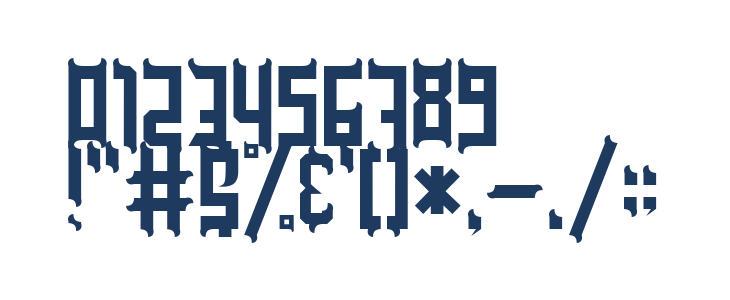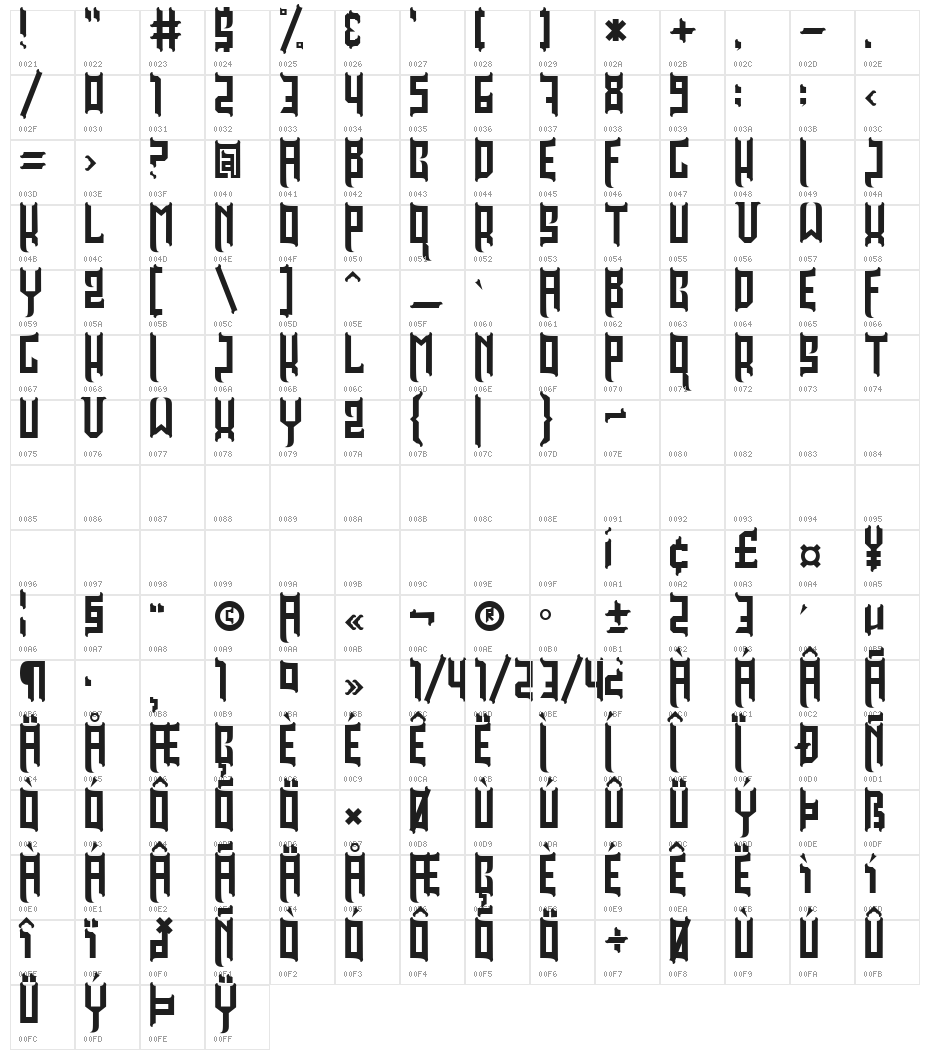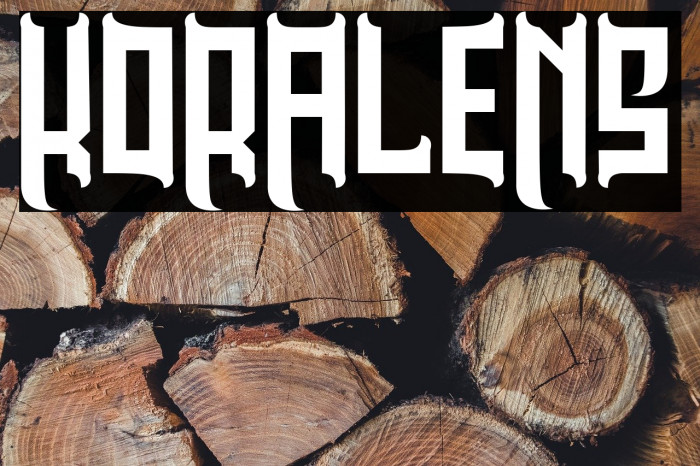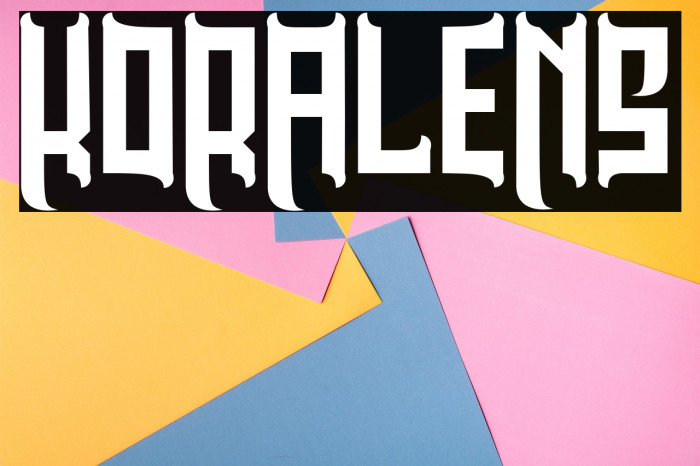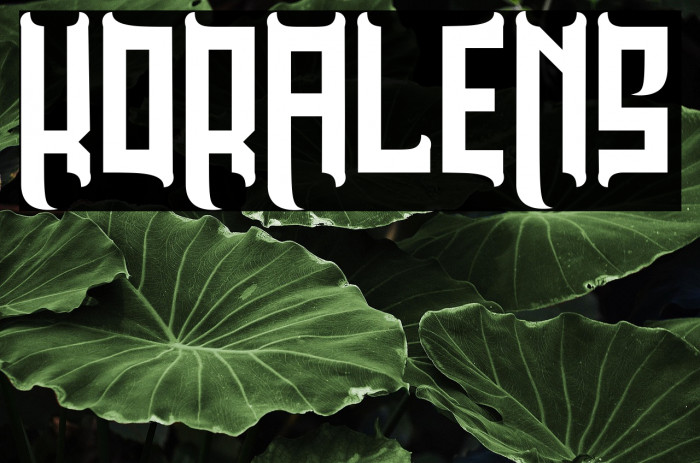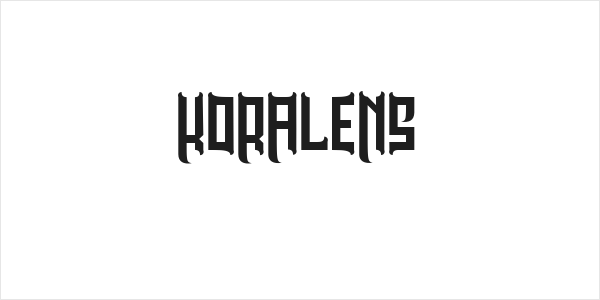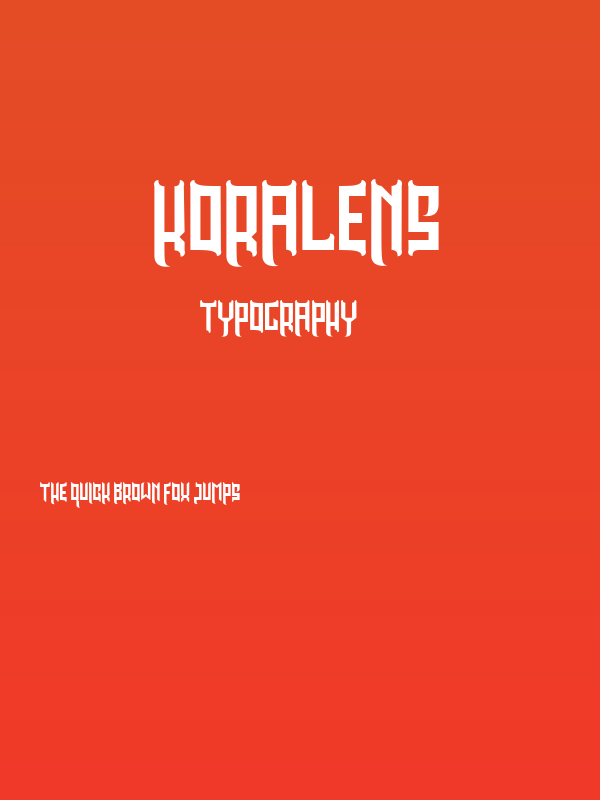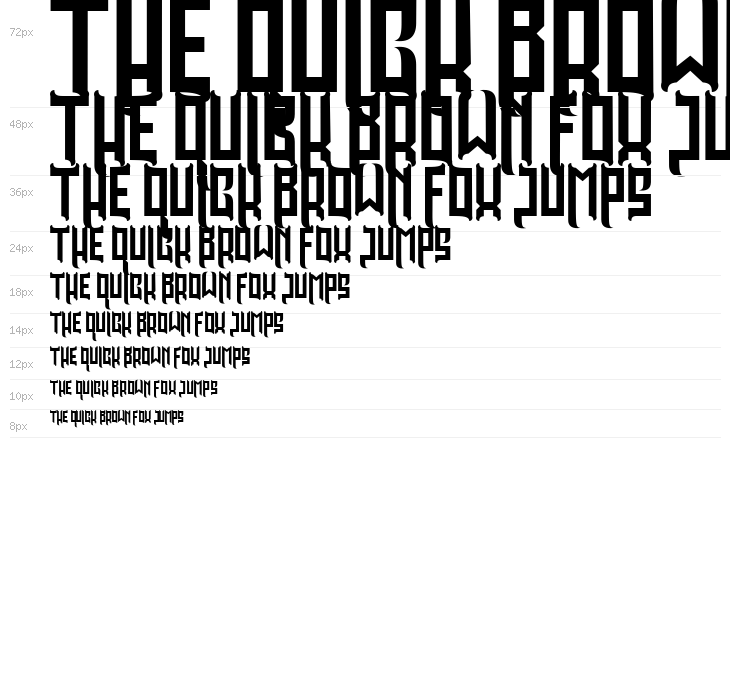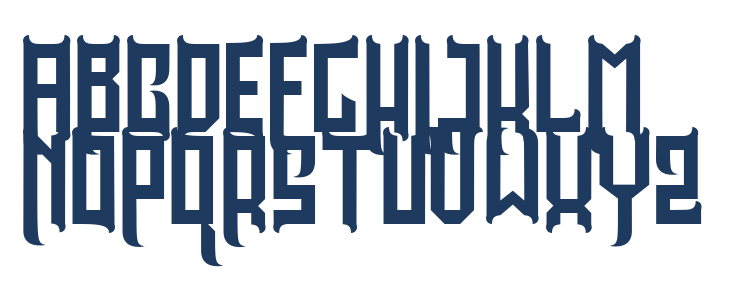
KORALENS Font
KORALENS Description
This font features a bold and striking design with a strong geometric structure. The characters are tall and narrow, with sharp angles and a consistent stroke width that gives it a modern and industrial feel. The uppercase and lowercase letters maintain a uniform height, creating a cohesive and balanced appearance. The numbers and special characters are designed to match the overall style, ensuring a seamless integration across different uses. The font's distinct look makes it ideal for projects that require a bold statement and a contemporary edge.
| Proposed Projects | Ideal for branding, posters, headlines, and any design needing a strong, modern impact. |